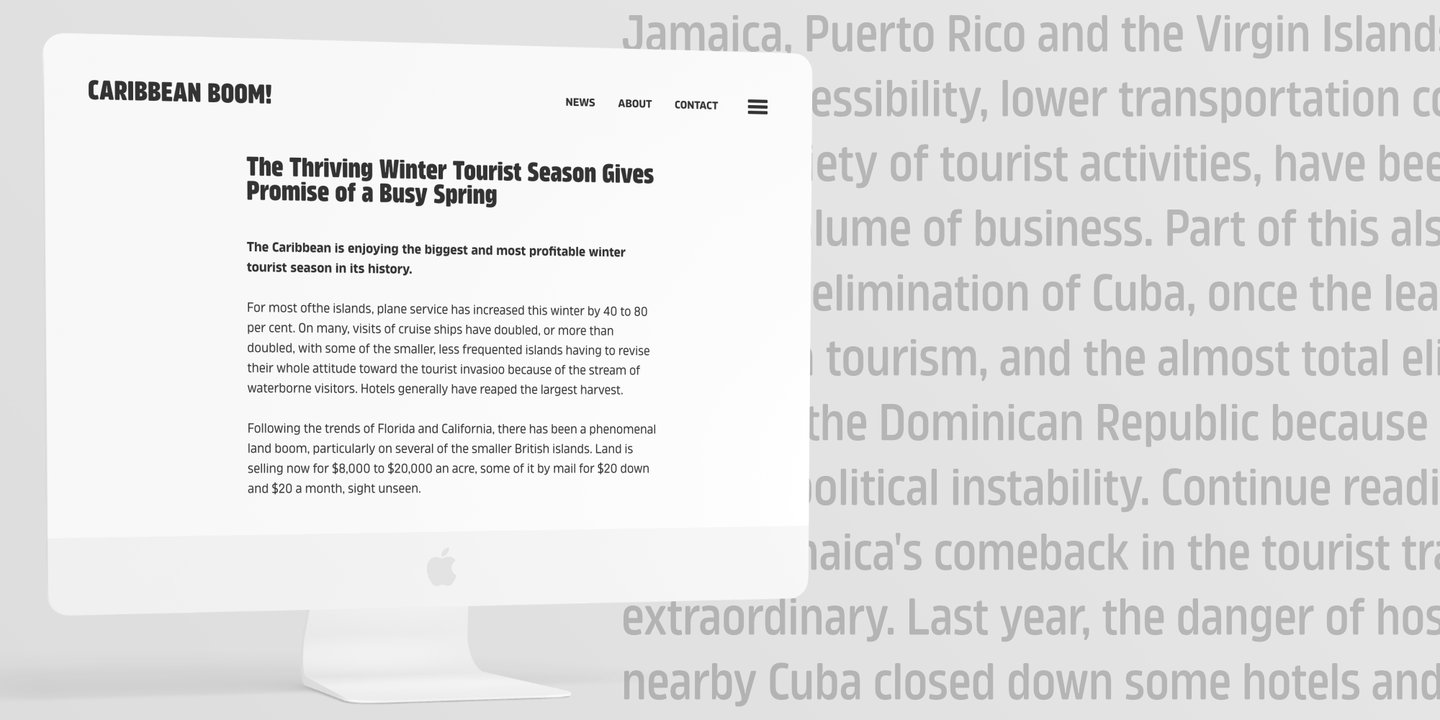
Amfibia™ is a soft, flat-sided geometric grotesk family with a lot of character, equipped with tons of ligatures and swashes. Its main function is display use of all kinds, however it is prepared to serve as paragraph text typeface thanks to its 5 widths, giving total amount of 100 fonts. It is crafted for a broad variety design situations - from posters, magazine editorial use, logo design & branding, to web design, user interfaces and mobile applications. Main features: - 5 widths (Narrow, Condensed, Normal, Expanded, Wide), each consisting 20 fonts - 10 weights for each width (from Hairline to Black) - handdrawn, carefully crafted obliques - over 900 glyphs, full of swashes, initial forms, terminals and ligatures - pronounced ink traps and large x-height improving legibility in small sizes as well as adding strong personality to display sizes - flat-sided letter shapes adding vertical rhythm and elegance to narrow widths - extended latin language support - OpenType features (swashes, initials, terminals, standard and discretionary ligatures, stylistic sets, contextual alternates, case sensitive forms, lining, oldstyle and tabular figures, slashed zero, fractions, superscript and subscript, ordinals, currencies and symbols)